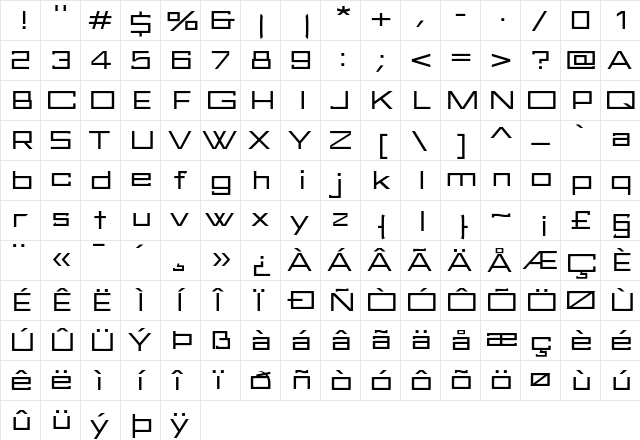
FuturBlock Regular
Design Context for FuturBlock Typeface
FuturBlock channels digital-age aesthetics through its sharp, structured letterforms — ideal for brands that want to signal innovation.